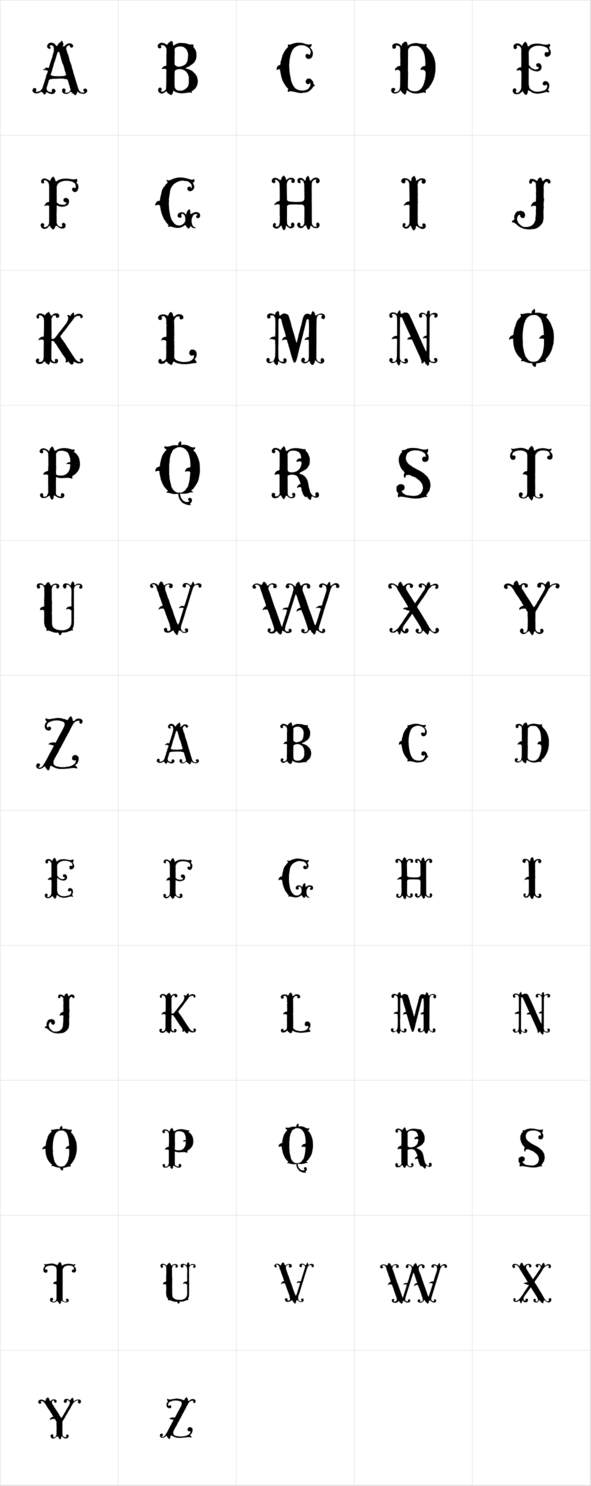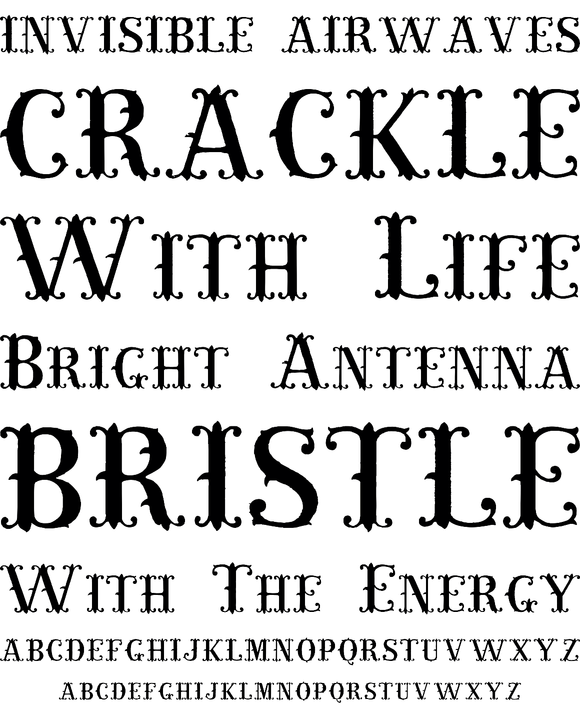
Massel is a family of tuscan/western style serif fonts. The five weights have only caps, and work excellent for more gritty western-style designs. Massel is similar to the font style found in Barry McGee's artworks that contain type.